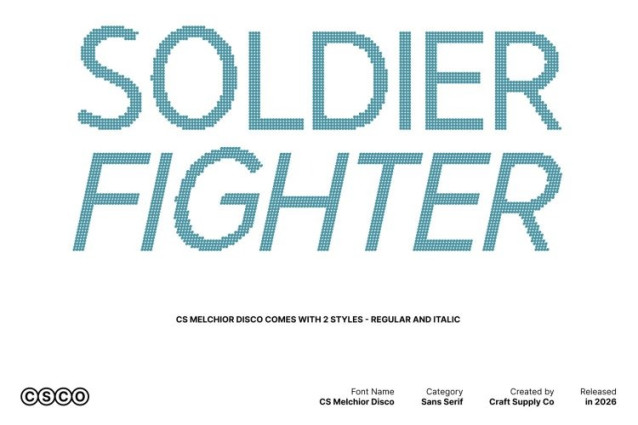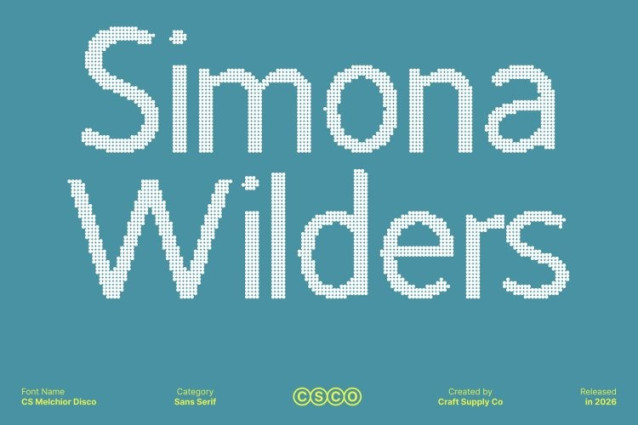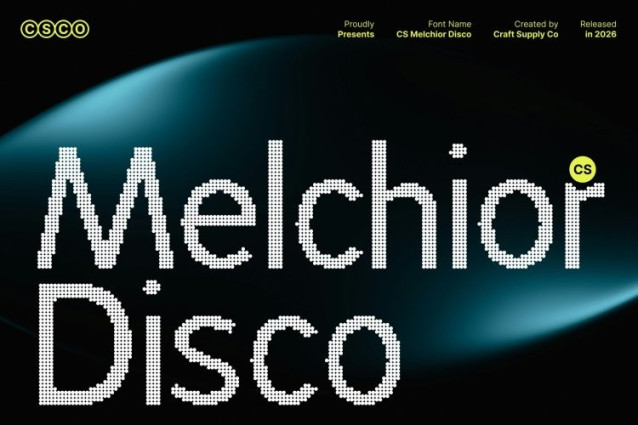
CS Melchior Disco Font
CS Melchior Disco Font This is a contemporary sans serif font that blends clean geometric structure with vibrant disco-inspired energy. Built on sharp lines, precise angles, and balanced curves, it delivers a polished modern appearance while adding a subtle sense of motion and shine like minimal design illuminated by flashing lights.
Highly Readable with Dynamic Proportions
Carefully refined proportions and spacing ensure outstanding readability across all sizes. Each character feels crisp, confident, and rhythmically balanced, allowing the font to perform beautifully in both headlines and extended text. Its clarity is enhanced by a lively visual flow that keeps layouts feeling fresh, energetic, and engaging.
Professional Modernity with a Festive Edge
This font retains a strong professional foundation while introducing a glamorous, upbeat attitude. The clean geometric aesthetic communicates trust and efficiency, while the disco influence adds confidence, excitement, and a modern celebratory vibe. This balance makes it ideal for brands that want to look polished yet expressive.
Perfect for Corporate Branding, Events, and Modern Visual Systems
Designed for versatility, this font works seamlessly across corporate branding, websites, editorials, packaging, digital interfaces, and event visuals. Its refined structure and energetic tone make it perfect for projects that demand clarity, sophistication, and a touch of party-ready modern flair professional by day, vibrant by night.